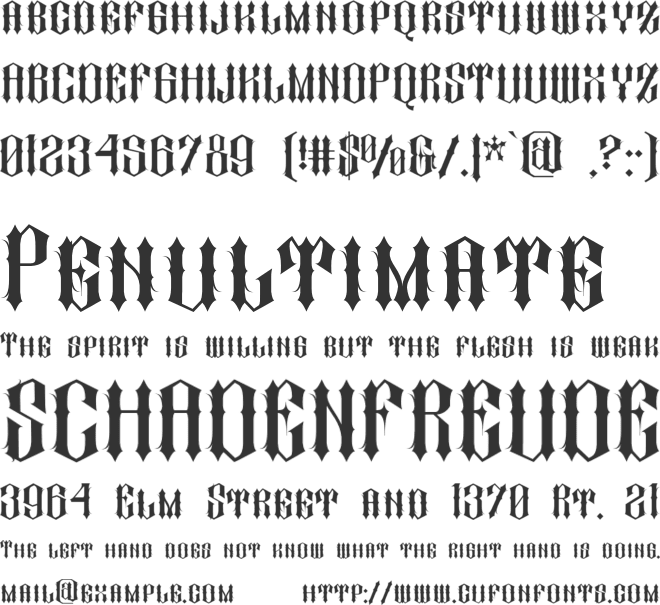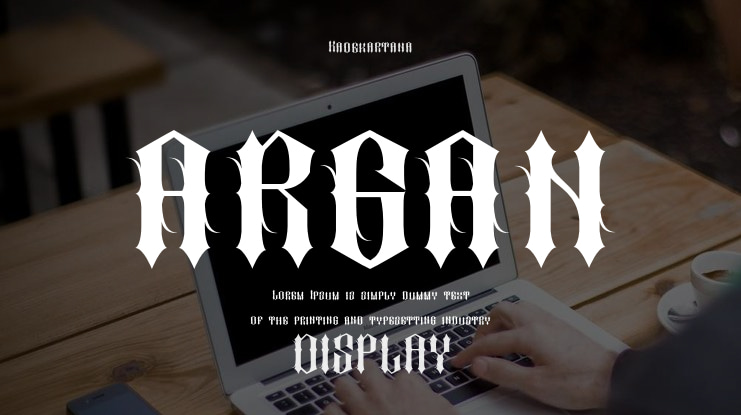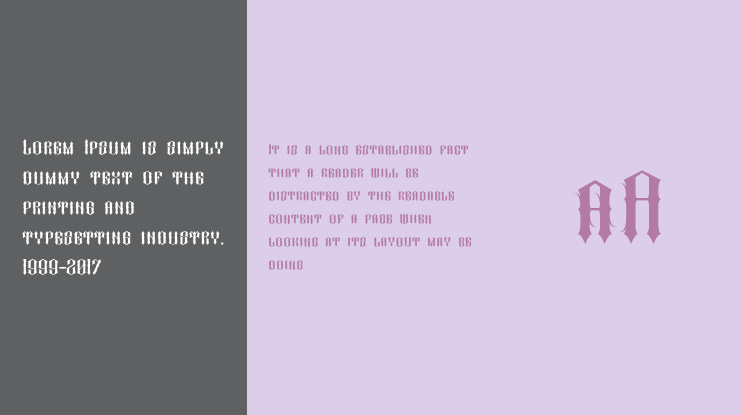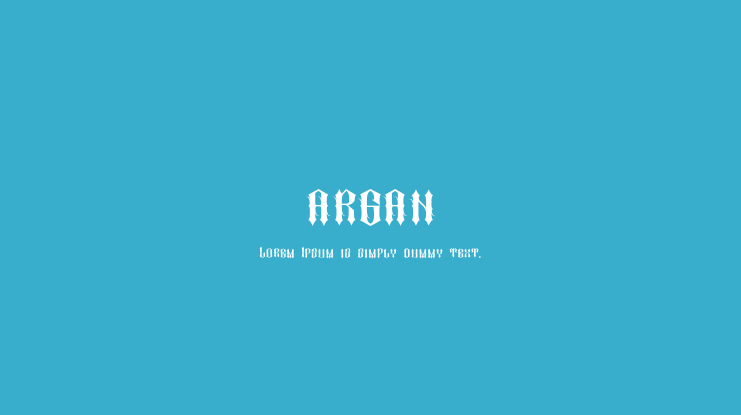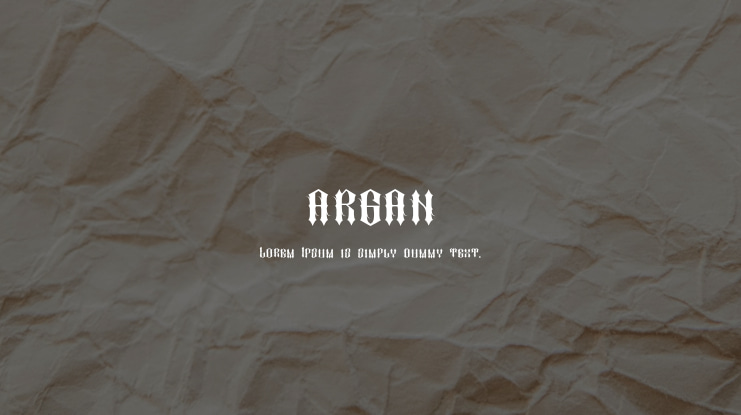
argan Font
The Argan - Demo Version is intended for personal use only. Your support through a donation would be highly valued. Argan is a typeface with a black metal aesthetic, characterized by sharp, angular, and distorted letters that convey a feeling of chaos. This font is often used to reflect the darkness and intensity of black metal music. Let's unleash the power of Argan, piercing through the silence with its loud and violent appearance, symbolizing the brutal aesthetic of the genre.